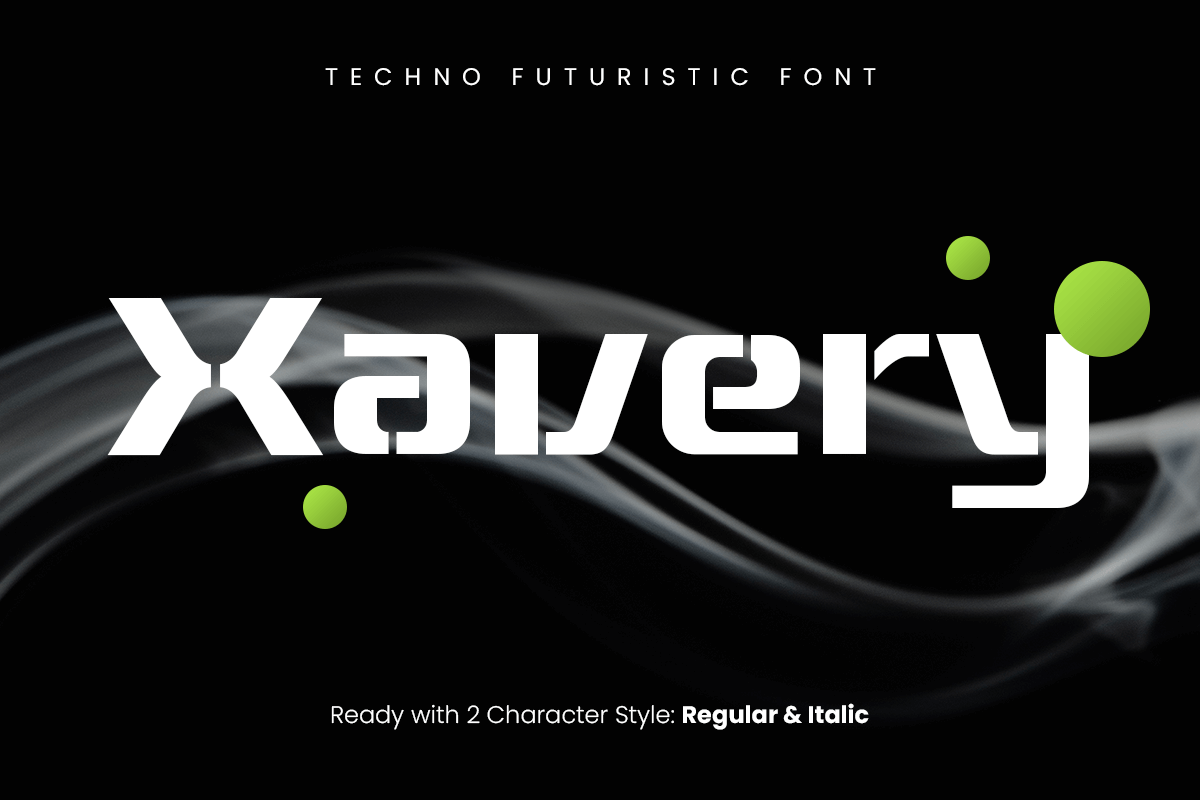
Xavery
-Stencil Techno Futuristic FontXavery - Stencil Techno Futuristic Font
XAVERY is a techno futuristic font built for modern digital design. Its sleek, streamlined forms and geometric precision make it the perfect choice for technology-driven branding, sci-fi visuals, and innovative interfaces.
Designed to evoke the future, XAVERY brings an advanced, digital style to your projects. Whether you’re creating for tech startups, gaming, or futuristic advertising, this font delivers a bold, clean look with sharp edges and contemporary style. The streamlined letterforms make XAVERY perfect for logos, titles, high-tech campaigns, and digital media.
XAVERY – Techno Futuristic Font Features
Sleek, high-tech letterforms with futuristic appeal
Ideal for digital branding, sci-fi, and technology themes
Clean, bold, and modern design
OpenType features for advanced typographic styling